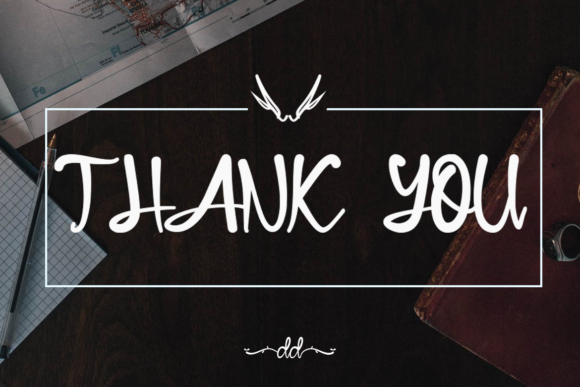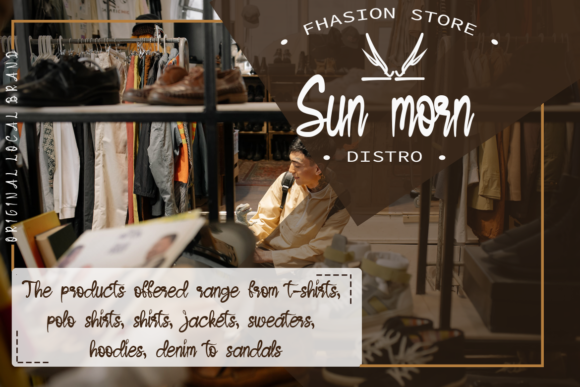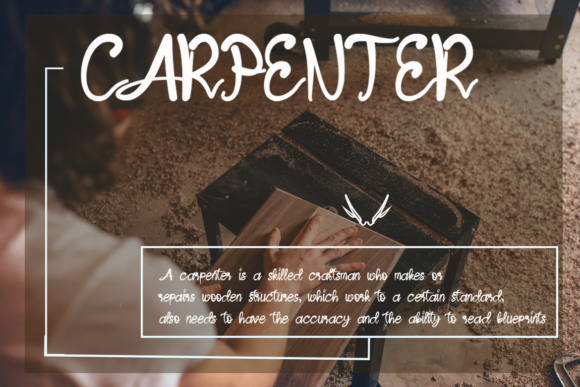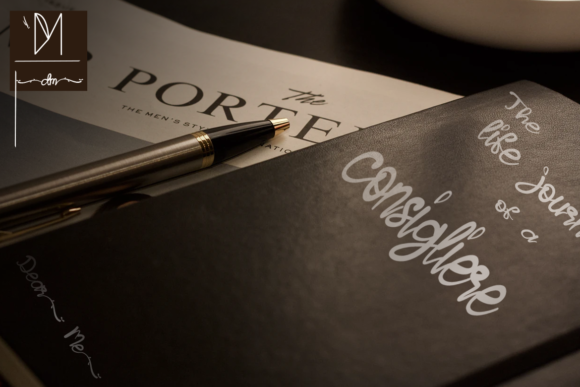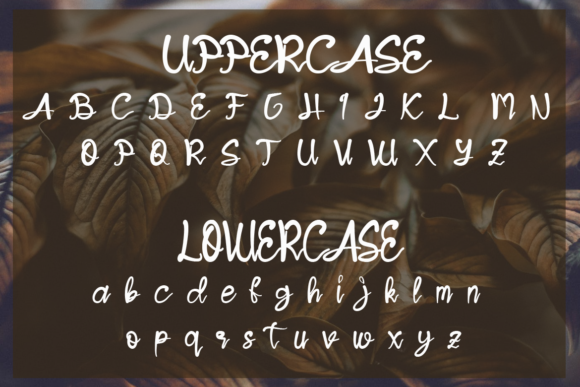
About Jendra Font
Jendra is a beautiful handwritten font with a unique feel and a stunning impact. This font is PUA encoded which means you can access all of the amazing glyphs and ligatures with ease!